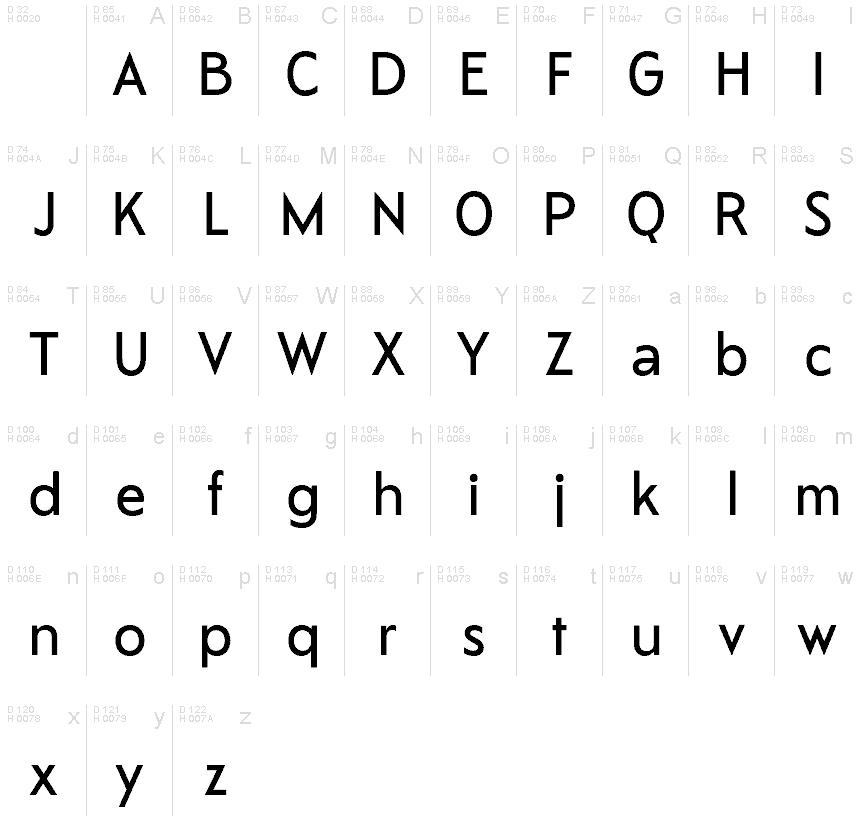
CS Monica Regular Demo
CS Monica font by Craft Supply Co. is a modern sans-serif option with rounded edges that make for a smooth feel. It presents clean lines, making it a sleek companion for all sorts of projects whether for personal or commercial purposes. Its minimalist stylish appearance cannot go unnoticed in any contemporary application.